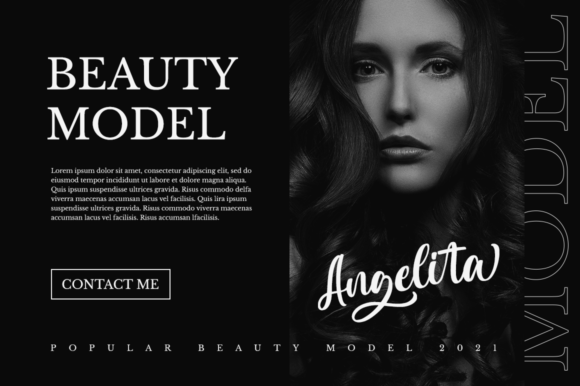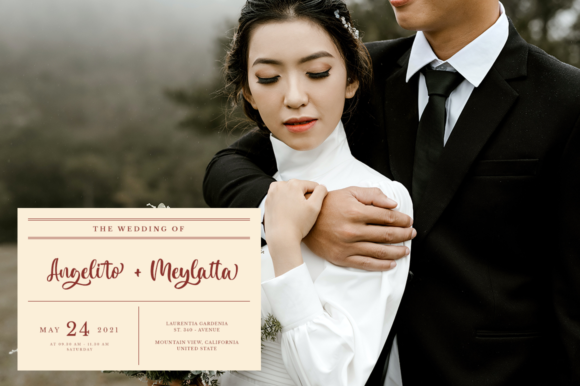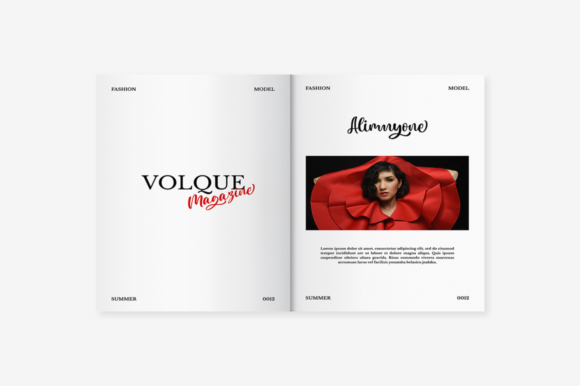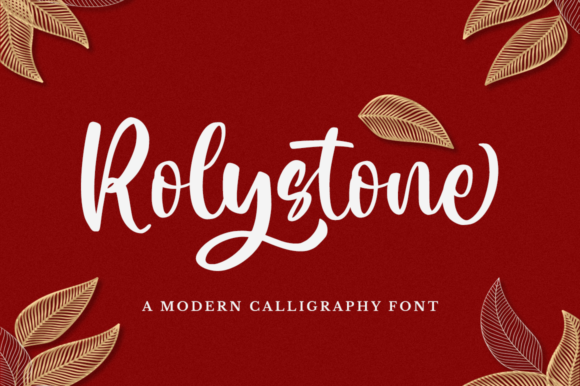
Introduction to Rolystone Font
Rolystone is a flowing and graceful script font.
Fall for its ravishing style and use it to create gorgeous wedding invitations, beautiful stationary art, eye-catching social media posts, and much more .
Rolystone Font offers exceptional quality and versatility, making it a valuable addition to your design toolkit. Whether you’re creating for personal projects or commercial use, Rolystone Font delivers professional results.